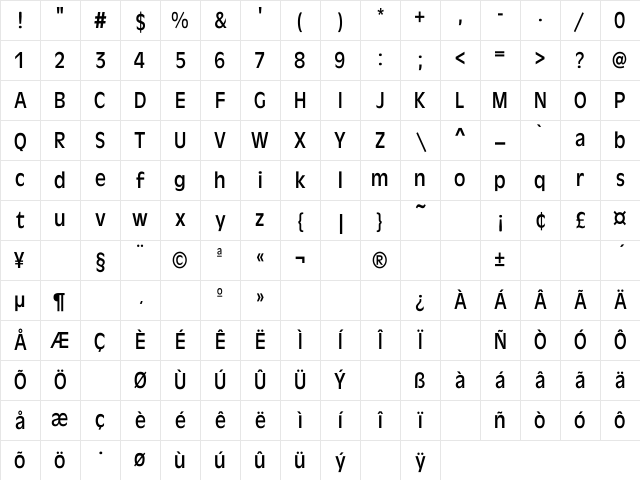
Complete Antique-Olive Th Regular glyph index. Displaying only characters natively supported by Antique-Olive Th Regular font.
Antique-Olive Th wears its vintage influences proudly, with letterforms that recall mid-century signage, classic packaging, and nostalgia-driven design.
Font Pairing: Combine Antique-Olive Th with a simple slab or neutral sans - period-accurate companions reinforce the vintage feel without competing for attention.
Pro Tip: Lean into Antique-Olive Th's period character by pairing it with aged paper textures, muted colour palettes, and vintage illustration styles.